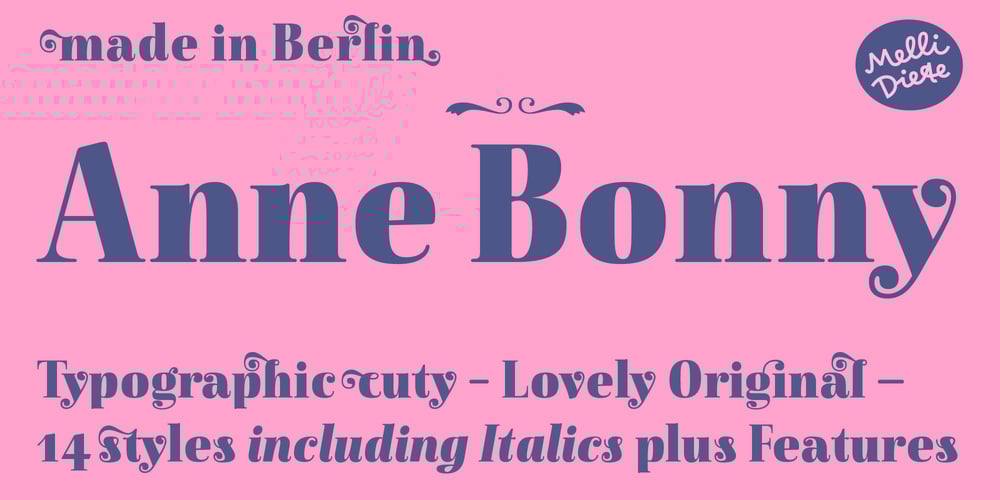
Anne Bonny Font Family was designed by Melli Diete and published by Melli Diete. Anne Bonny contains 14 styles and family package options. Anne Bonny is a modern face with a candy touch. She is noble and confident, bloomy and playful. If you want to give your texts a warm and fabulous note, Anne Bonny is the right one. You can choose between a range of Open Type Features, for example the Swashes Feature for decorating the Upright styles letters as well as the Italics.Share your vision!